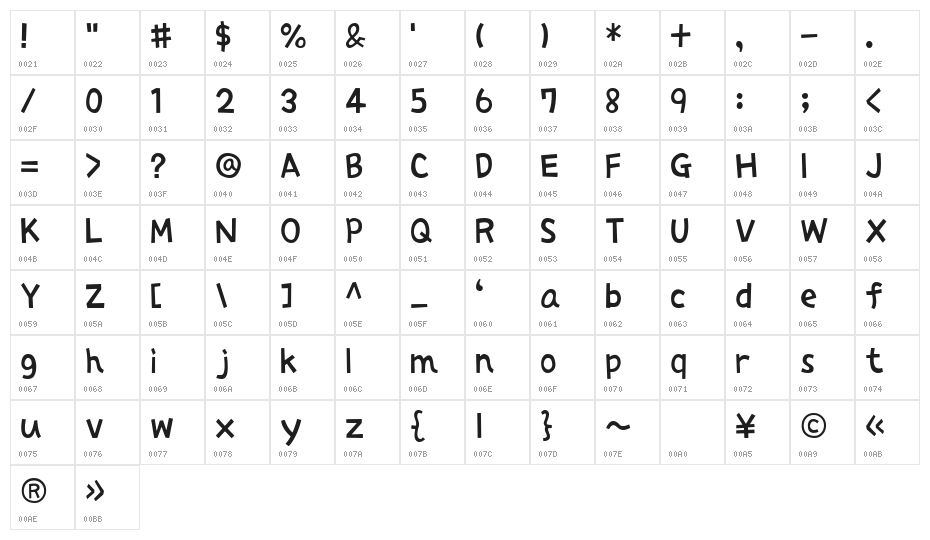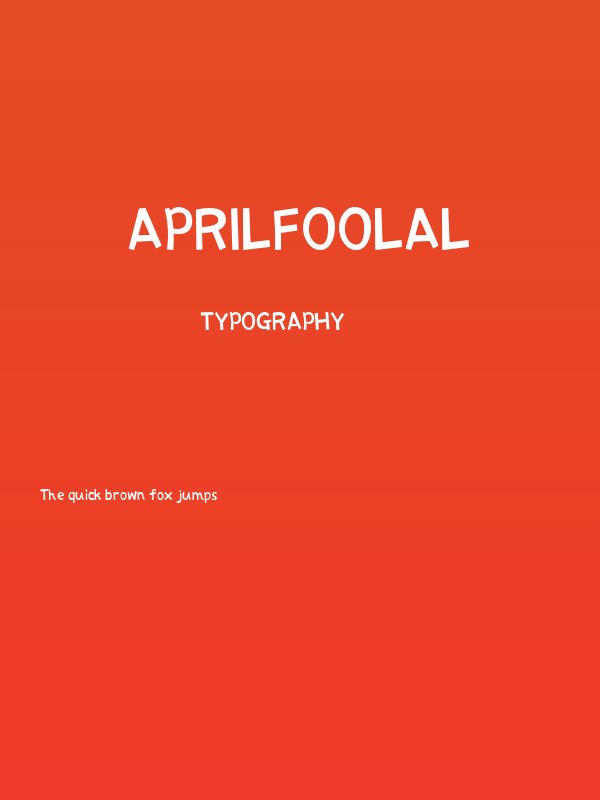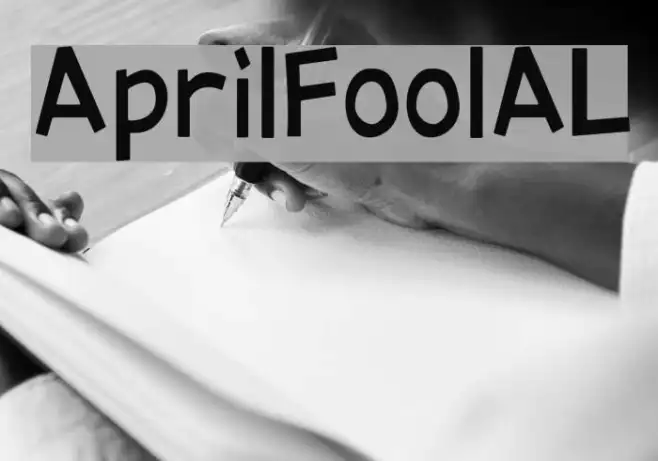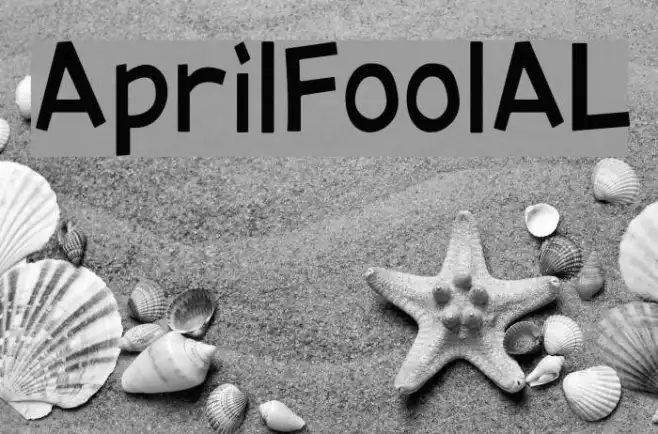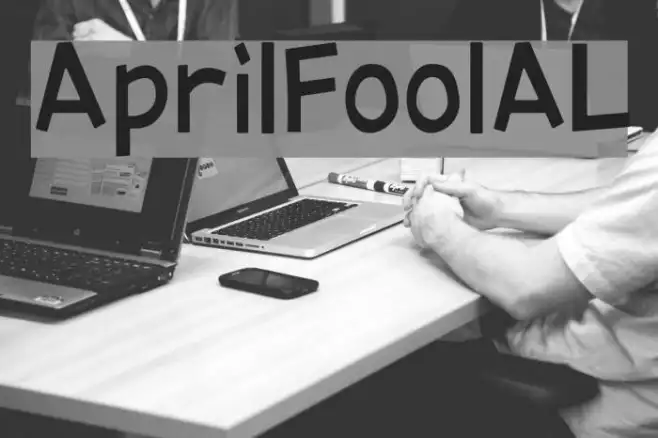
AprilFoolAL Font
AprilFoolAL Description
This playful and whimsical font features a quirky, hand-drawn style that adds a sense of fun and creativity to any project. The letters are slightly irregular, with varying stroke widths that give it a lively and dynamic appearance. The uppercase and lowercase characters maintain a consistent style, while the numbers and special characters complement the overall design. This font is perfect for projects that aim to convey a lighthearted and informal tone, making it ideal for children's books, playful branding, or creative posters.
| Overall Style | Whimsical |
| Proposed Projects | Children's books, playful branding, creative posters, informal invitations. |